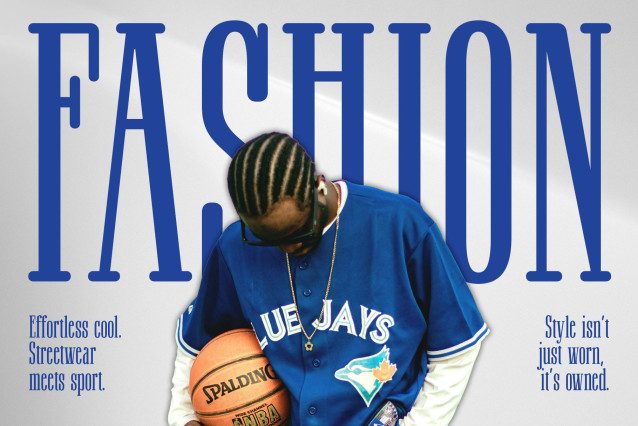
Railine Rounded Font
Railine Rounded Font is a classic retro serif font that blends vintage sophistication with modern design sensibilities. Its condensed letterforms are tall and slim, offering a refined, space-efficient layout that retains excellent readability. The clean serif structure is inspired by traditional typography, giving it a timeless, editorial feel that effortlessly evokes mid-century charm.